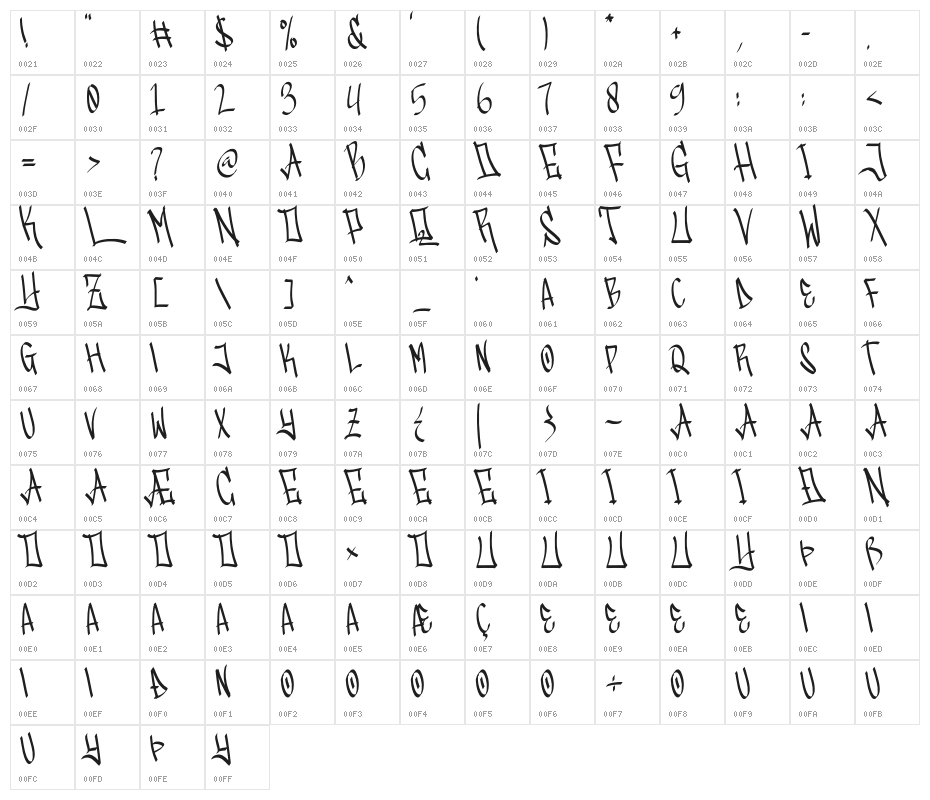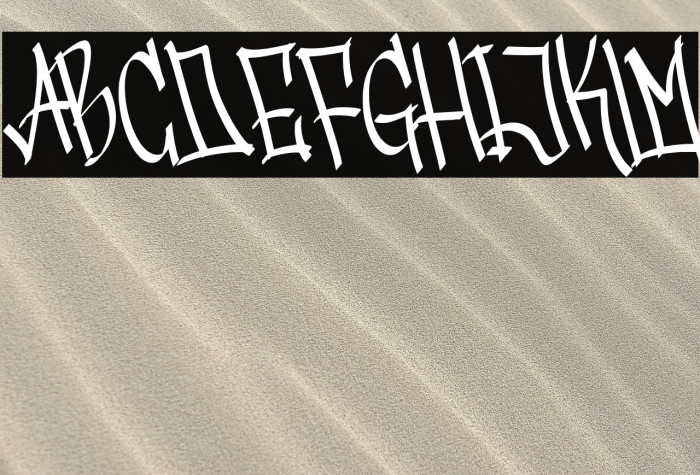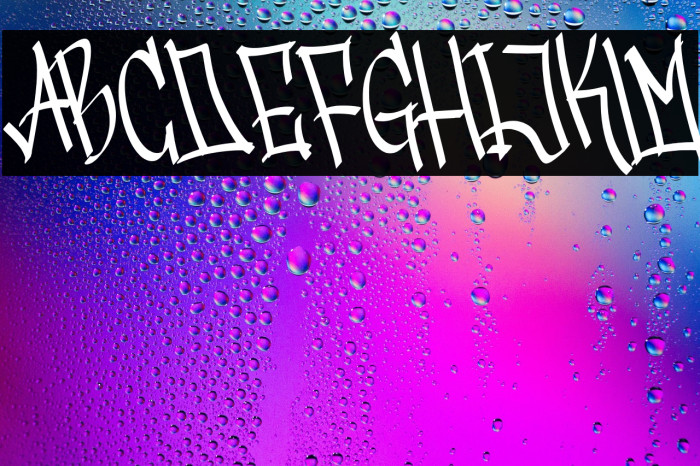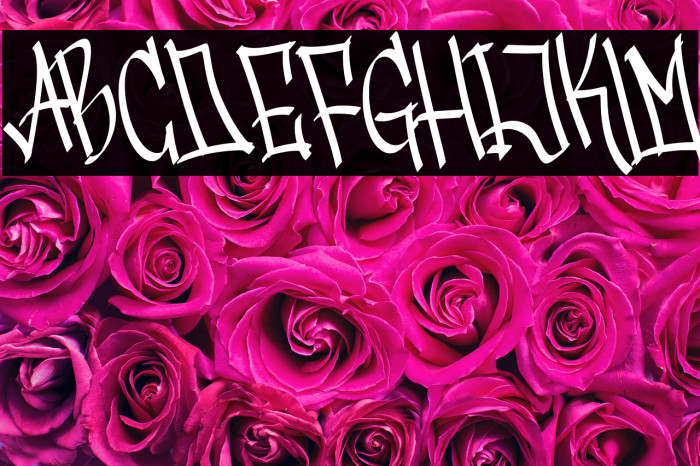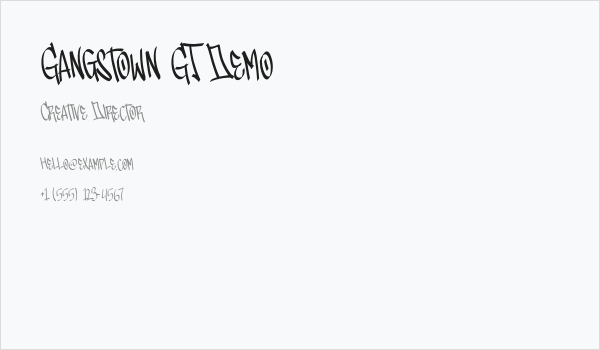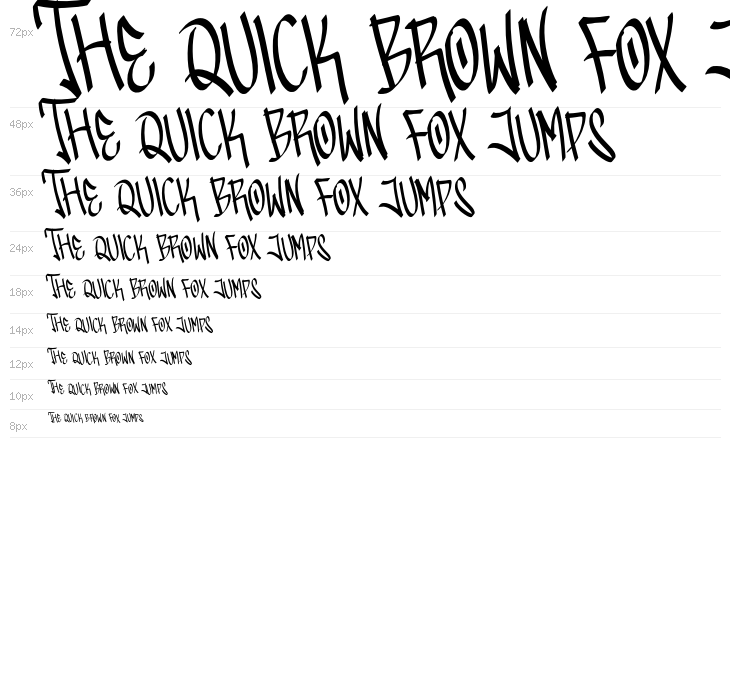
Gangstown GT Demo Font
Gangstown GT Demo Description
This font features a bold, graffiti-inspired style with sharp, angular lines and a dynamic, energetic appearance. The uppercase and lowercase letters are characterized by their elongated forms and exaggerated curves, giving them a rebellious and urban feel. The numbers and special characters maintain this edgy aesthetic, making the font suitable for projects that require a strong, impactful presence. The overall design is reminiscent of street art, with a hand-drawn quality that adds to its authenticity and appeal.
| Overall Style | Urban, Graffiti, Edgy |
| Proposed Projects | Ideal for street art designs, urban-themed posters, music album covers, and edgy branding projects. |